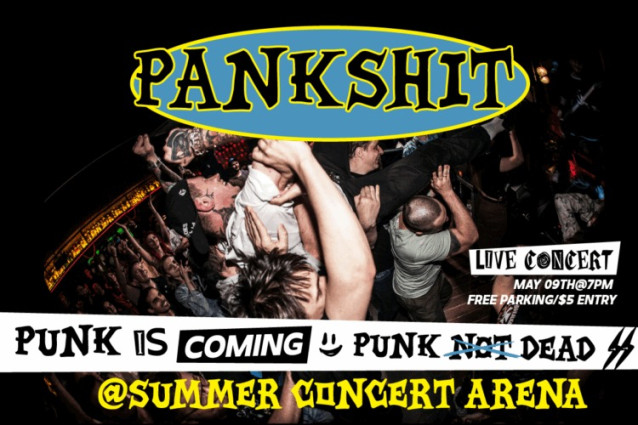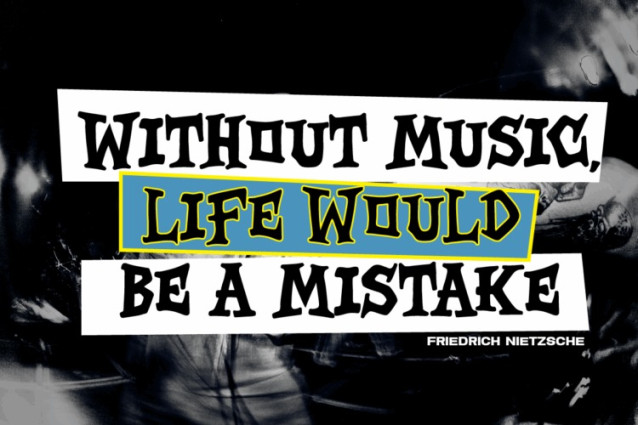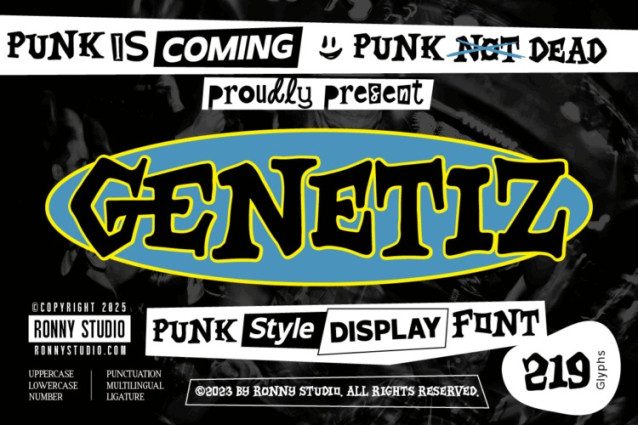
Genetiz Font
Genetiz Font a punk-inspired display font packed with wild energy, expressive shapes, and the true attitude of the 90’s punk scene. Built with chaotic strokes, gritty textures, and raw visual power, GENETIZ brings a bold identity to any design that refuses to look “ordinary.” ⚡🔥
Inspired by gig posters, DIY cassette covers, band stickers, and early 2000s street-punk visuals, GENETIZ is the perfect choice for creating noisy, bold, and anti-mainstream artwork. Whether you’re designing merch, streetwear graphics, or edgy visual projects, this font will instantly elevate your work with unmistakable punk attitude